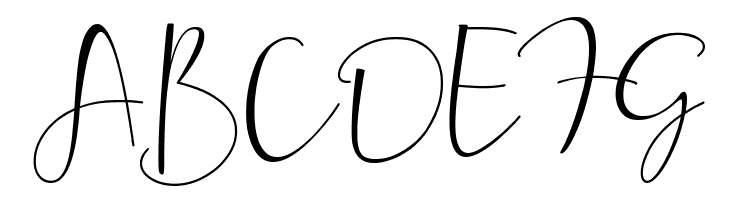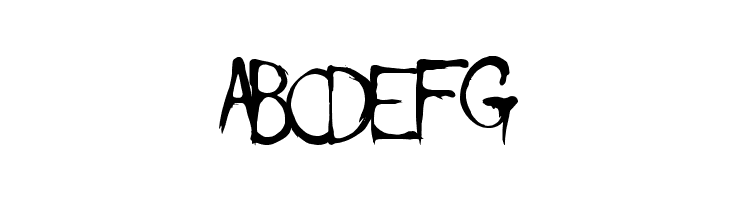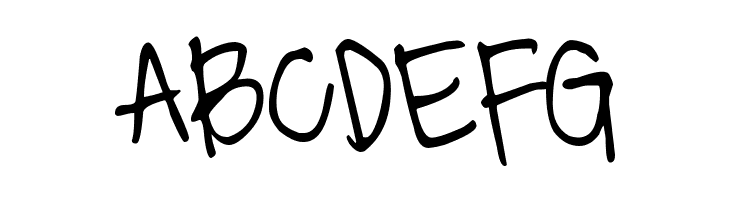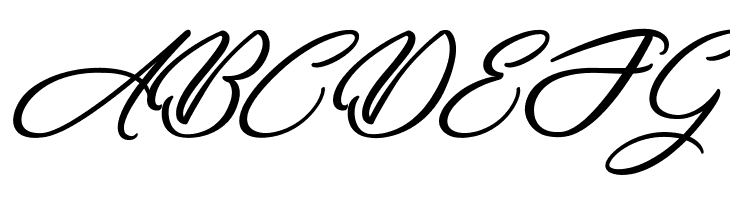
A modern, geometric sans-serif font with rounded shapes and uniform stroke width.
A casual, handwritten font with playful loops and a personal touch.
A playful, bold, and rounded font with a modern and whimsical style.
A playful, handwritten font with irregular and dynamic letterforms.
A bold, italic, brush-style font with a dynamic and expressive handwritten feel.
A playful, handwritten-style font with dynamic, slanted characters.
A sophisticated script font with flowing, interconnected letters and elegant flourishes.
A bold, distressed font with a grungy, rebellious style.
An elegant and artistic script font with flowing, interconnected letterforms.
A distorted, artistic font with irregular, hand-cut style.
A playful, handwritten font with fluid, expressive letterforms and a whimsical style.
A playful, casual handwritten font with irregular strokes.
A playful, handwritten font with bold strokes and a casual, whimsical style.
A playful, bold font with rounded, outlined characters perfect for whimsical designs.
A bold, playful font with rounded edges and a chunky appearance.
A bold, playful handwritten font with thick, rounded strokes.
A playful, handwritten font with thin, pen-like strokes and a casual style.
A playful, handwritten font with thin, uneven strokes and a casual style.
A playful, hand-drawn font with an energetic and sketch-like appearance.
A playful, handwritten font with rounded, bubbly characters and a casual style.
A playful and whimsical script font with flowing, connected letters.
A playful, hand-drawn font with a whimsical and doodle-like style.
A playful and whimsical font with dynamic curves and angles.
A playful, outlined handwritten font with a casual vibe.
A hand-stitched, embroidery-style font with a playful and crafty appearance.
A playful, handwritten-style font with a casual and dynamic appearance.
A whimsical and enchanting font with curly, decorative elements.
A bold, playful font with thick, rounded letters and a friendly style.
A whimsical, hand-drawn font with playful, irregular lines.
A playful, casual handwritten font with smooth, flowing lines and a slightly slanted style.
A whimsical, hand-drawn font with a magical, playful style.
A playful, handwritten font with a casual and informal style.